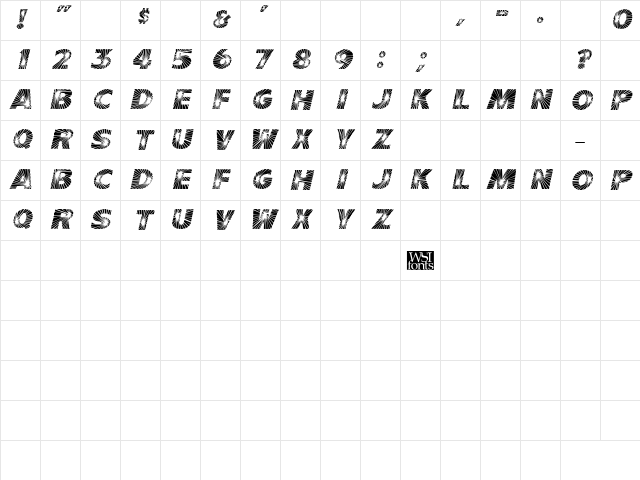
Starburst Italic Free Font
Starburst Italic
Design Context for Starburst
Starburst is a composed and adaptable typeface that performs quietly and consistently across a wide range of design contexts. The slanted form adds forward momentum and visual energy.